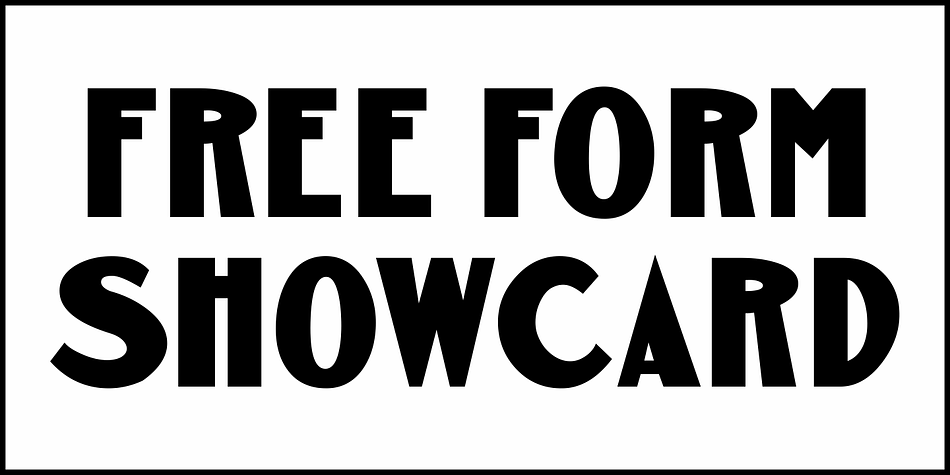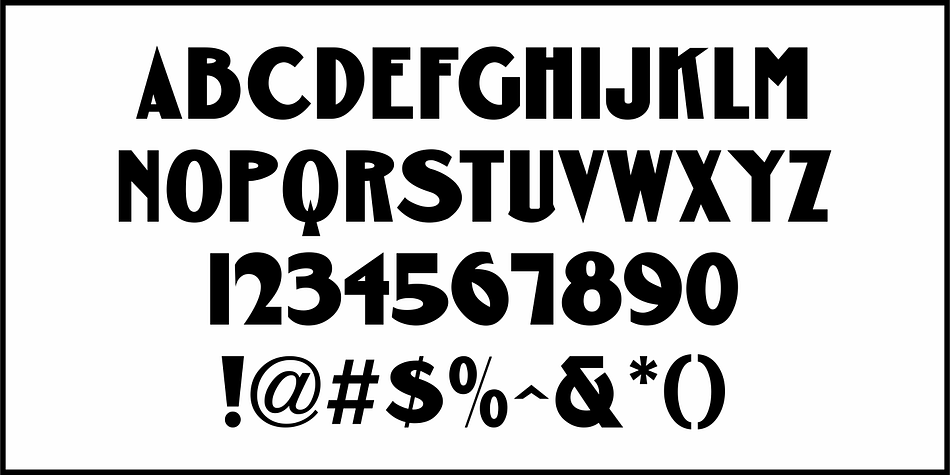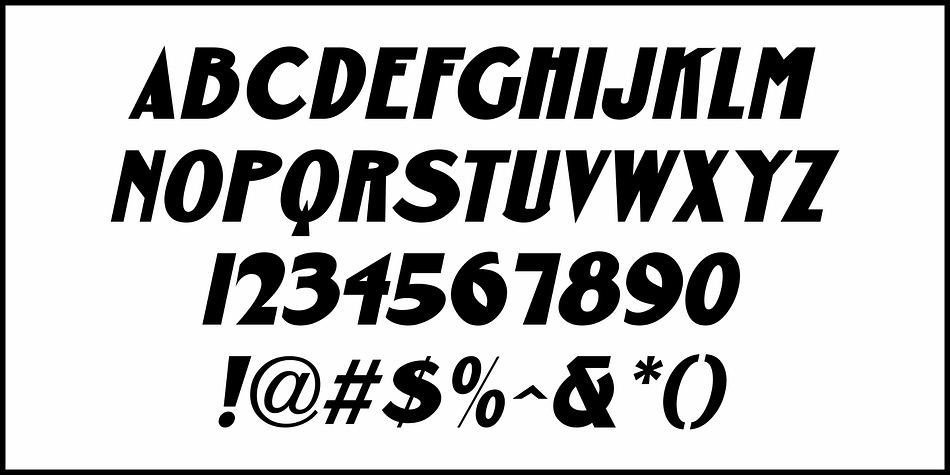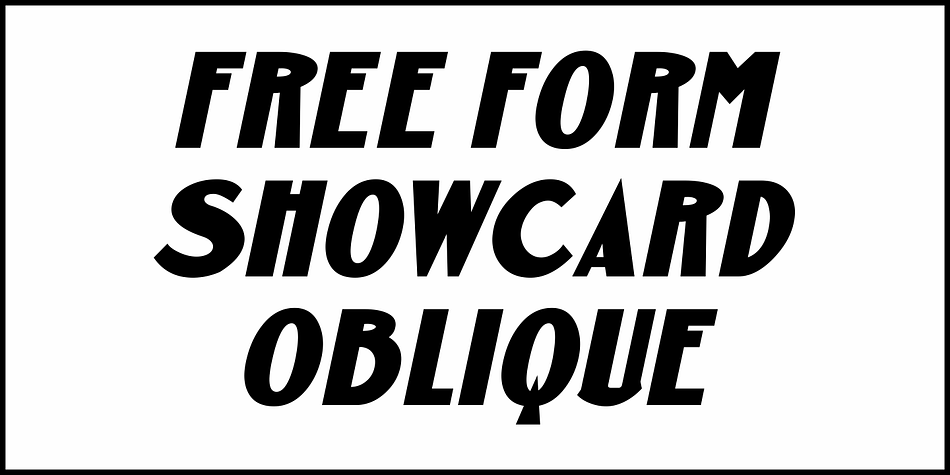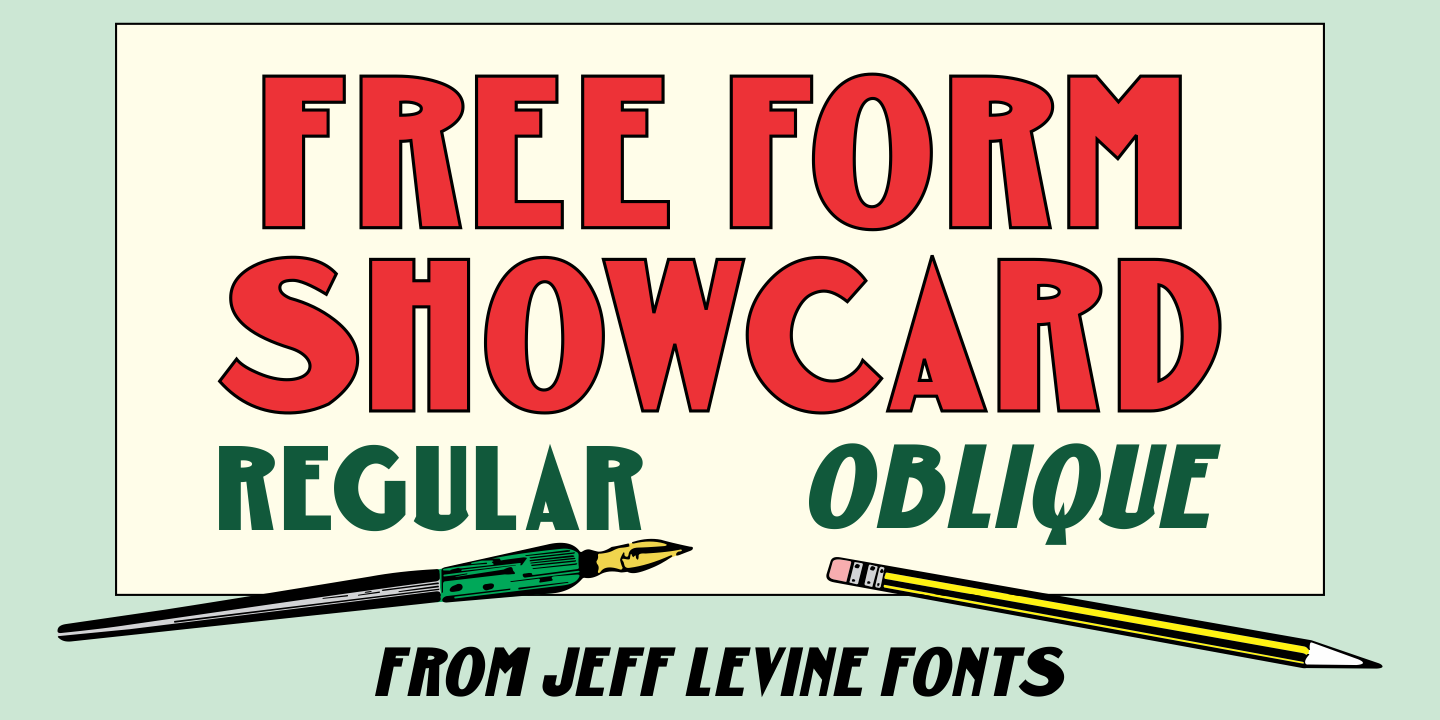
FREE FORM SHOWCARD JNL
Designed by Jeff Levine, Free Form Showcard JNL is an art nouveau and display sans font family. This typeface has two styles and was published by Jeff Levine Fonts.
One of the examples in the 1916 publication “Baker’s Showcard Book” [an early 20th Century instructional book on sign lettering] was simply called “Plain Poster”.
Somewhat Art Nouveau in style, but with many ‘nonconforming’ character shapes and widths, this novelty design is available digitally as Free Form Showcard JNL in both regular and oblique versions.